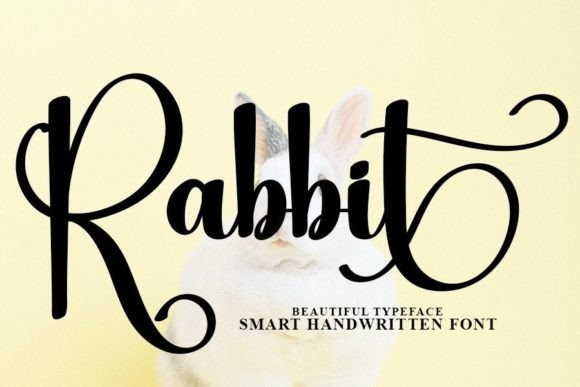
Rabbit Script Font
Rabbit Script Font is a beautiful and light handwritten font with a unique feel and a stunning impact. It will add a luxury spark to any design project you wish to create!